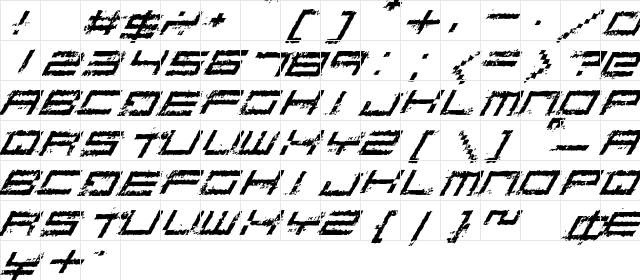
Rusting Robotica Italic Free Font
Rusting Robotica Italic
Design Context for Rusting Robotica
Rusting Robotica is a composed and adaptable typeface that performs quietly and consistently across a wide range of design contexts. The slanted form adds forward momentum and visual energy.
Pro Tip: Use Rusting Robotica for emphasis, pull quotes, and subheadings where its slanted energy can add rhythm to the layout.